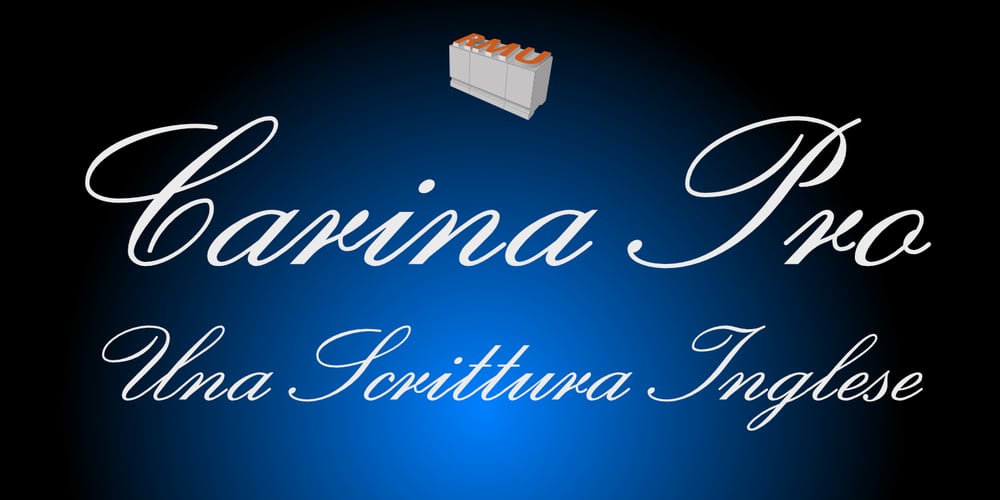
Carina Pro
Carina Pro font
Carina Pro Font Family was designed by Ralph M. Unger and published by RMU. Carina Pro contains 1 styles and family package options. Like Phenix out of the ashes the former Schriftguss hot-metal font „Rautendelein“ has come to live again. Carina Pro was carefully extended for multilingual use, and contains a few alternates which can be activated via the swash OpenType feature.